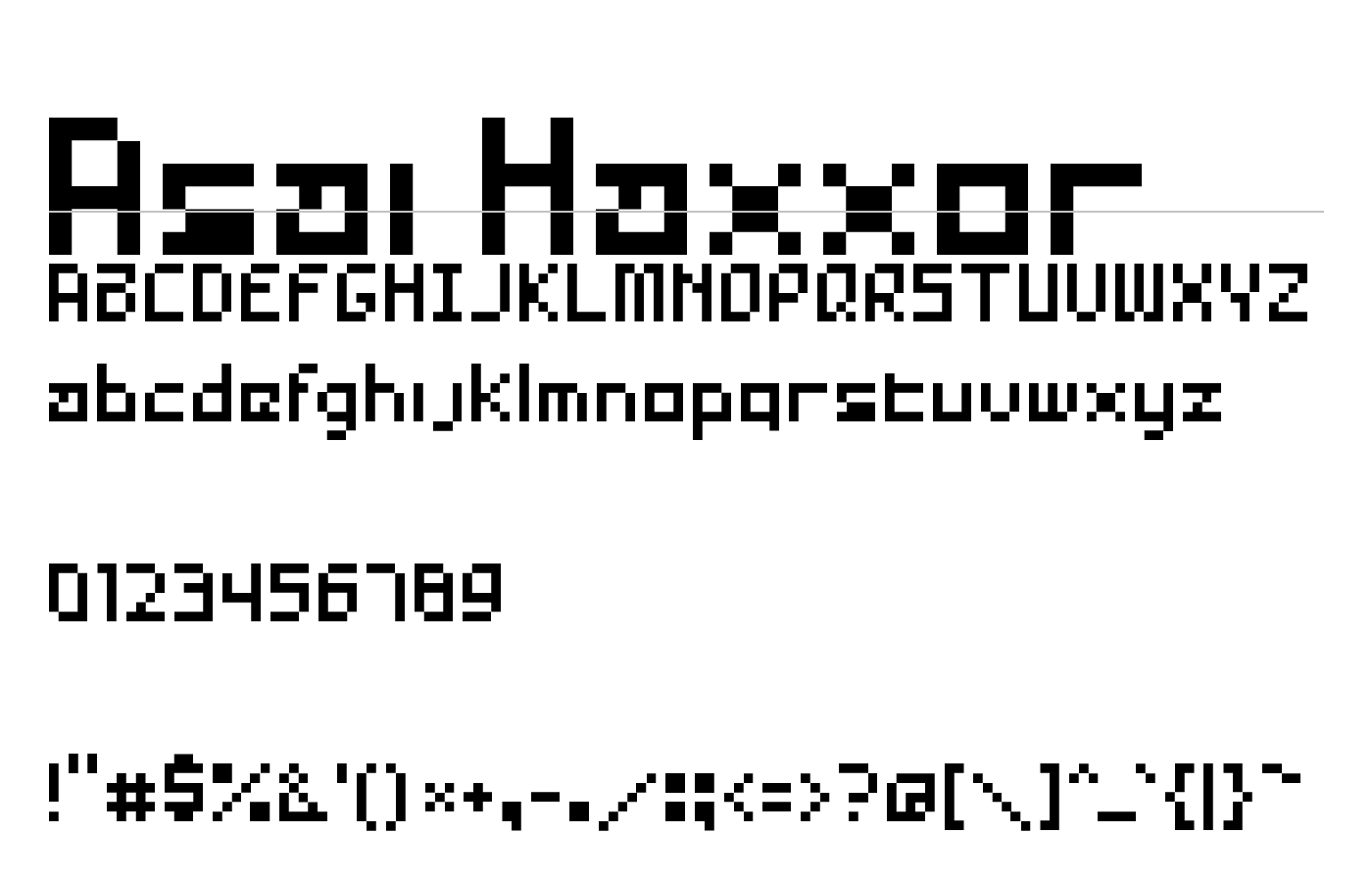
Asai Haxxor is a bold, pixel-inspired sans serif font with a digital, blocky appearance that evokes retro computer and arcade aesthetics. Its monospaced, geometric letterforms feature sharp, square edges and consistent stroke weight, making it perfect for tech-themed designs, coding projects, or any context that demands a vintage digital vibe. This font works well for headlines, logos, and creative projects aiming for a bold, futuristic, and nostalgic style.
Asai Haxxor Font
About Asai Haxxor Font
| Font family | Asai Haxxor Font |
| Designer | asaifactory |